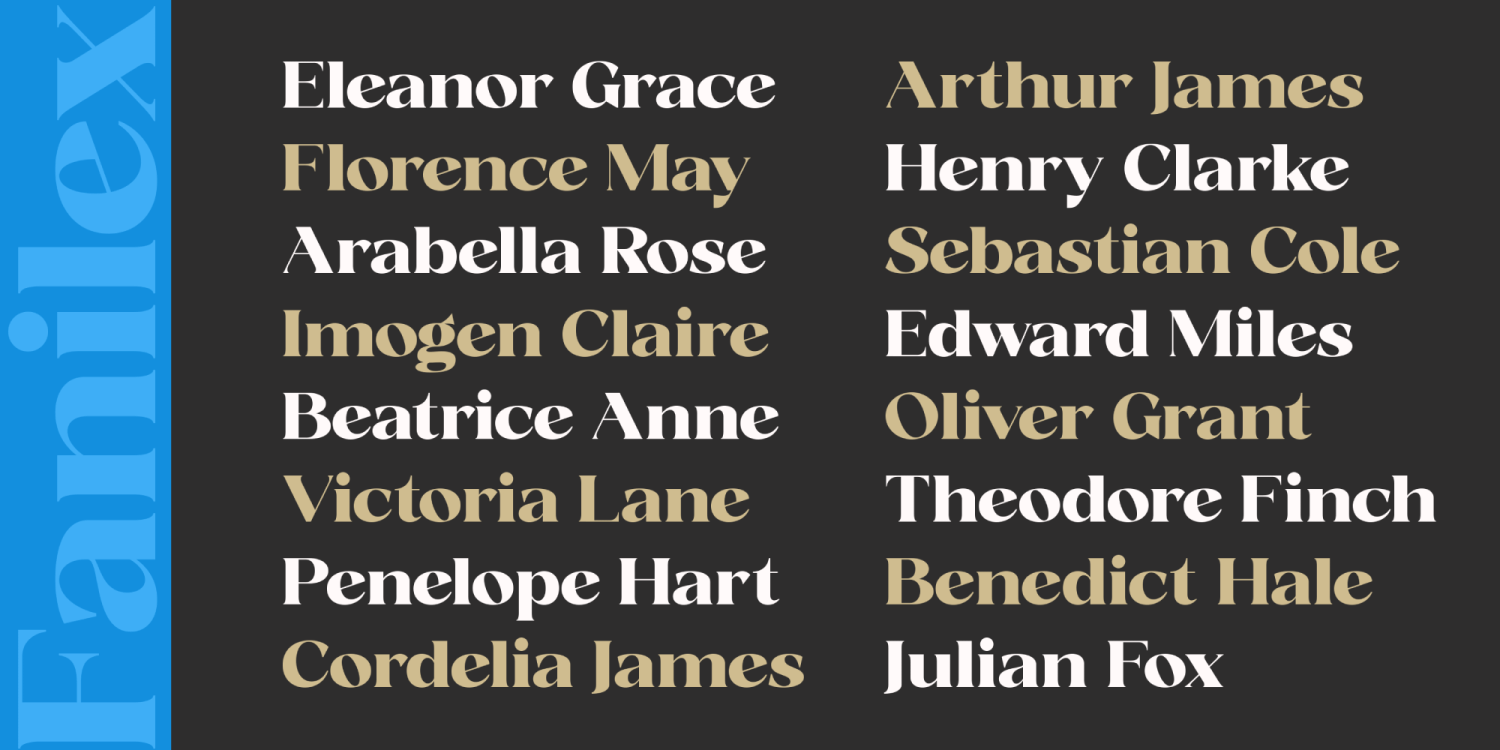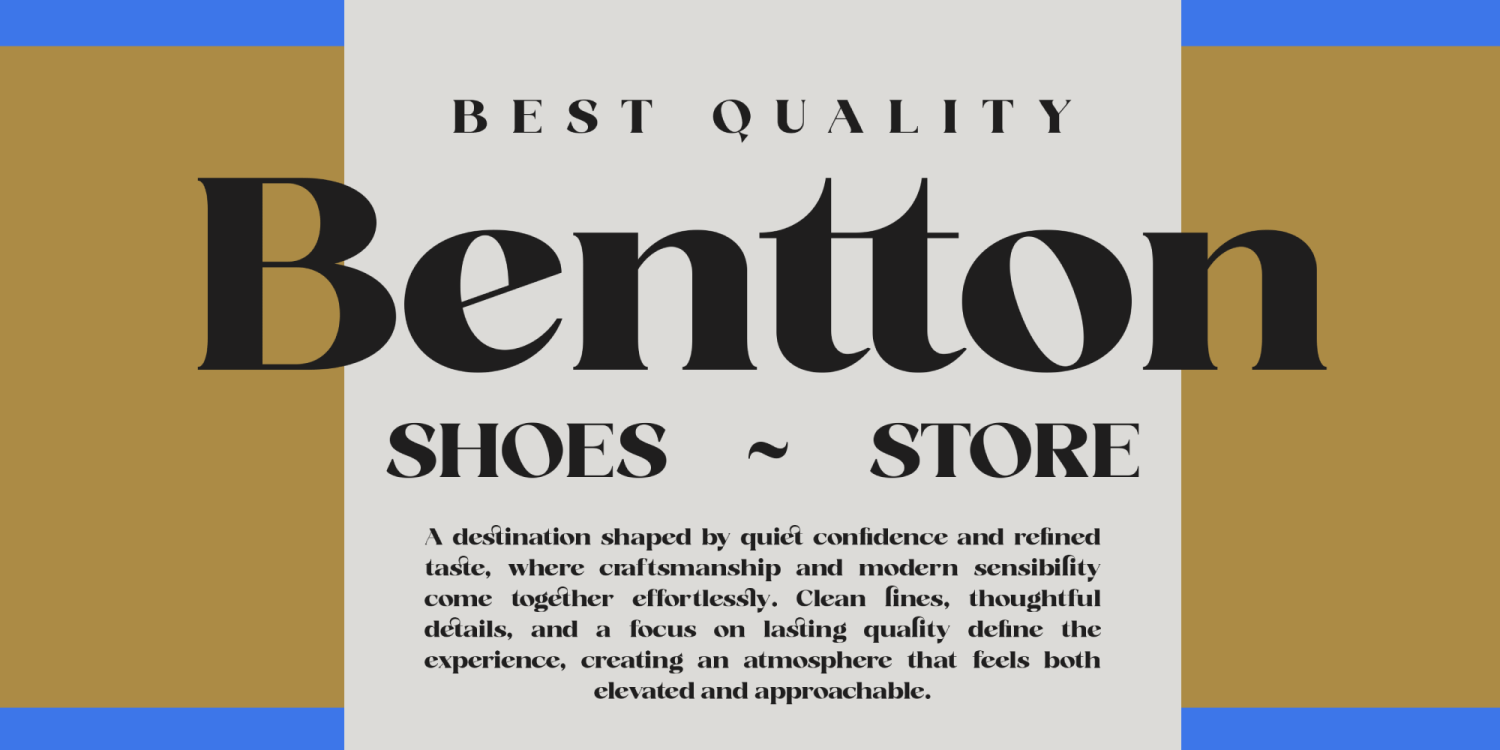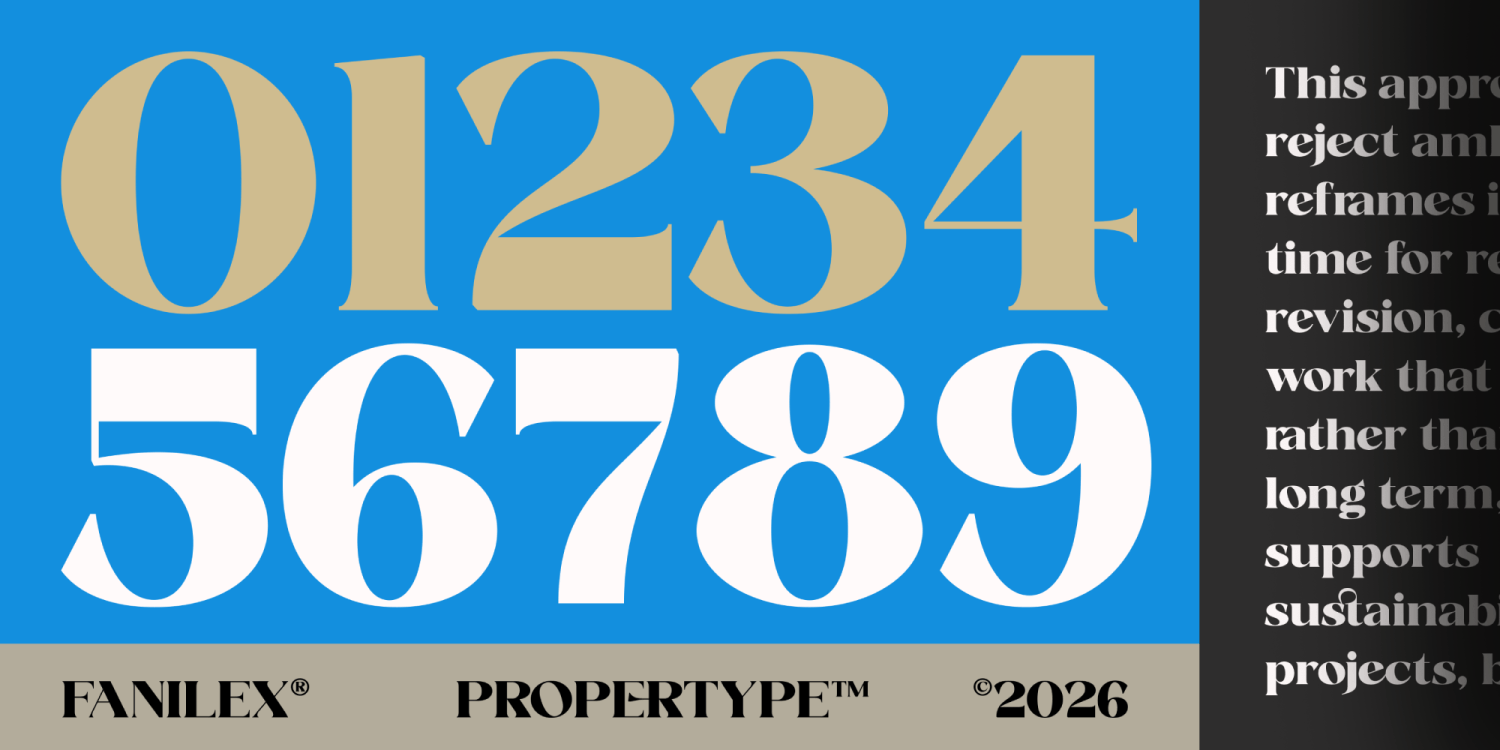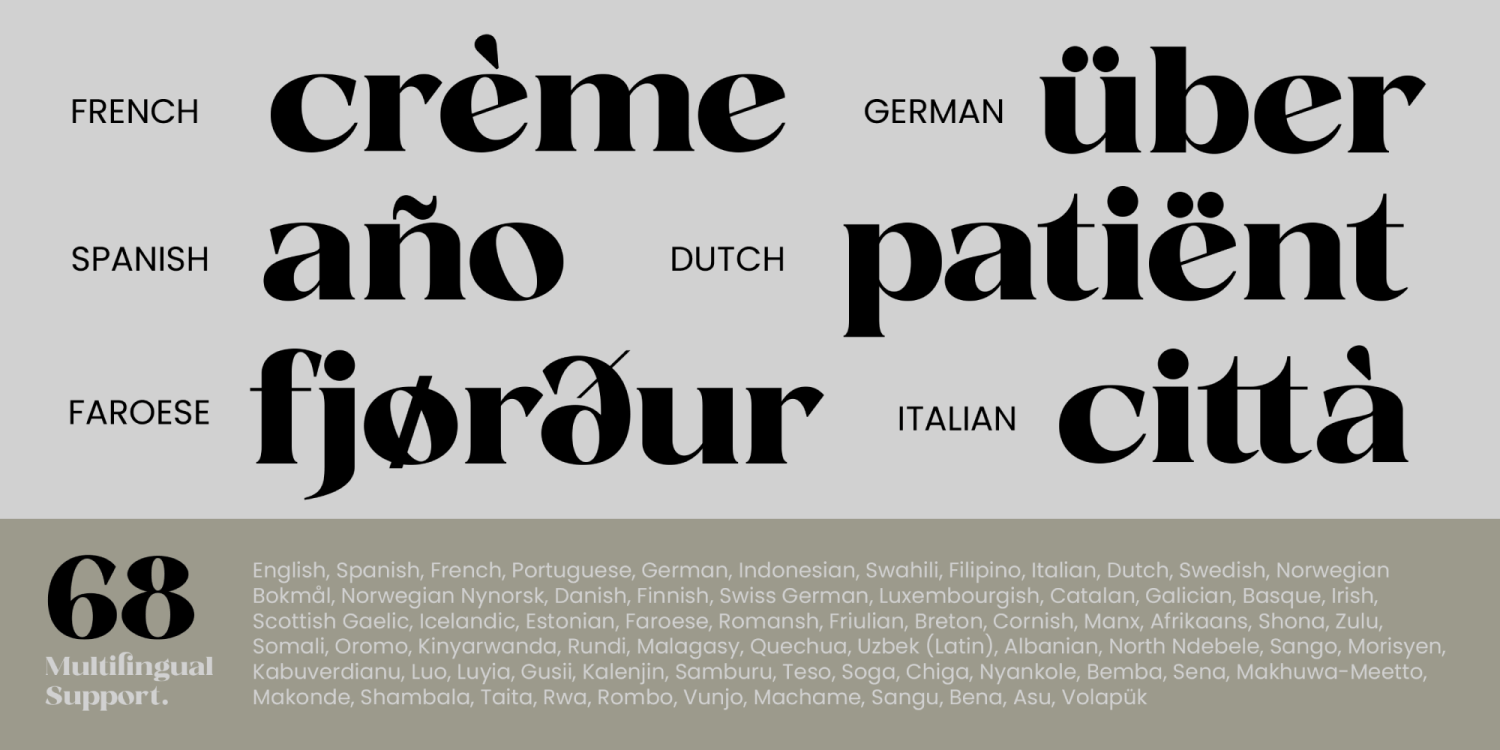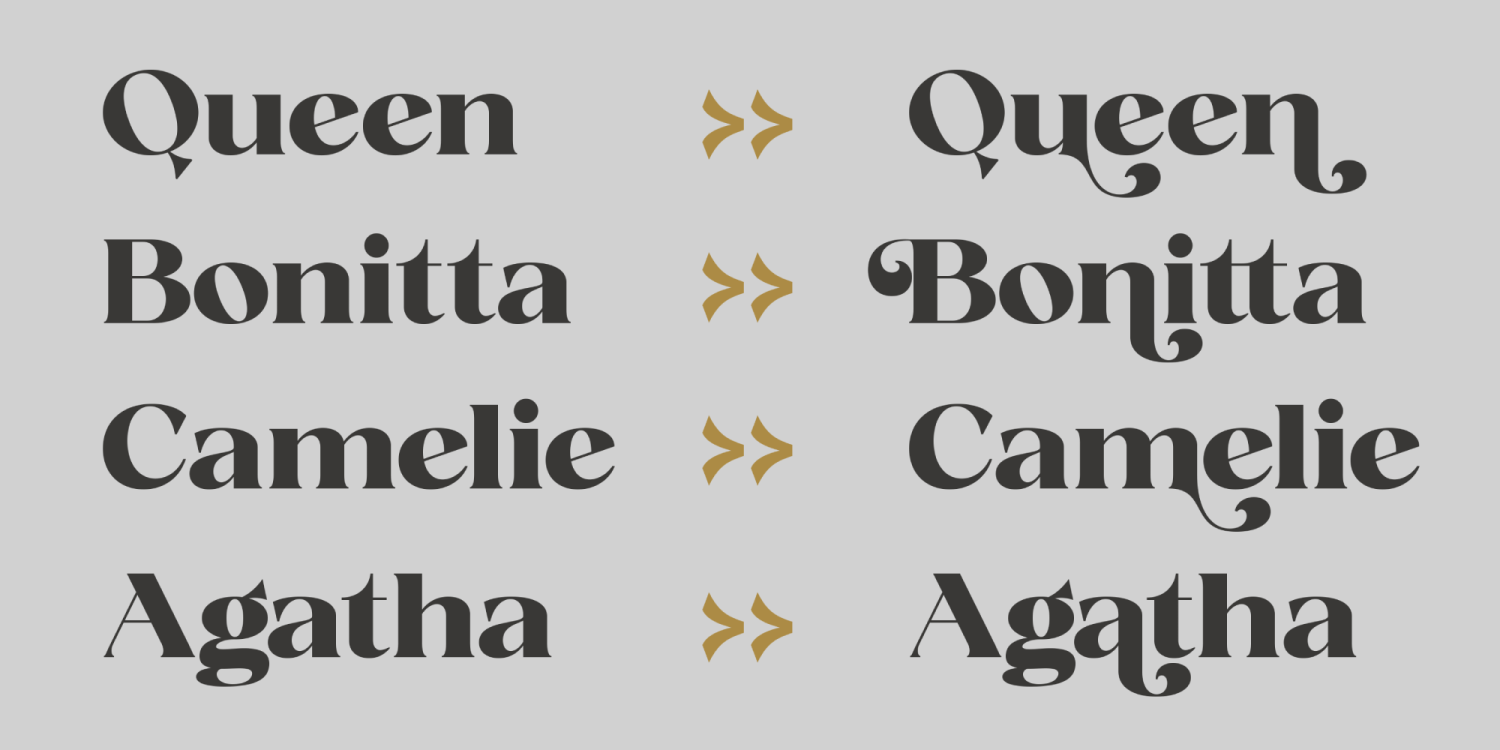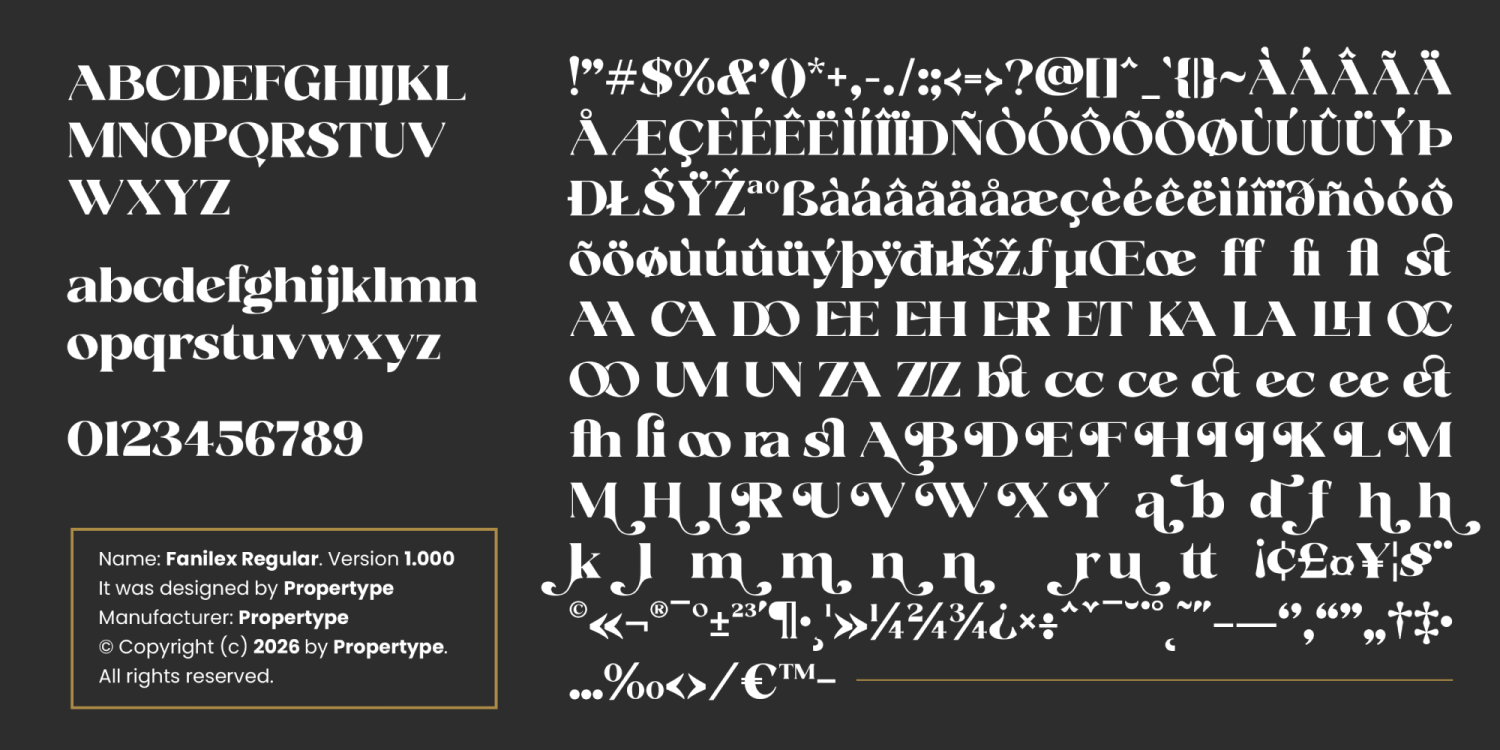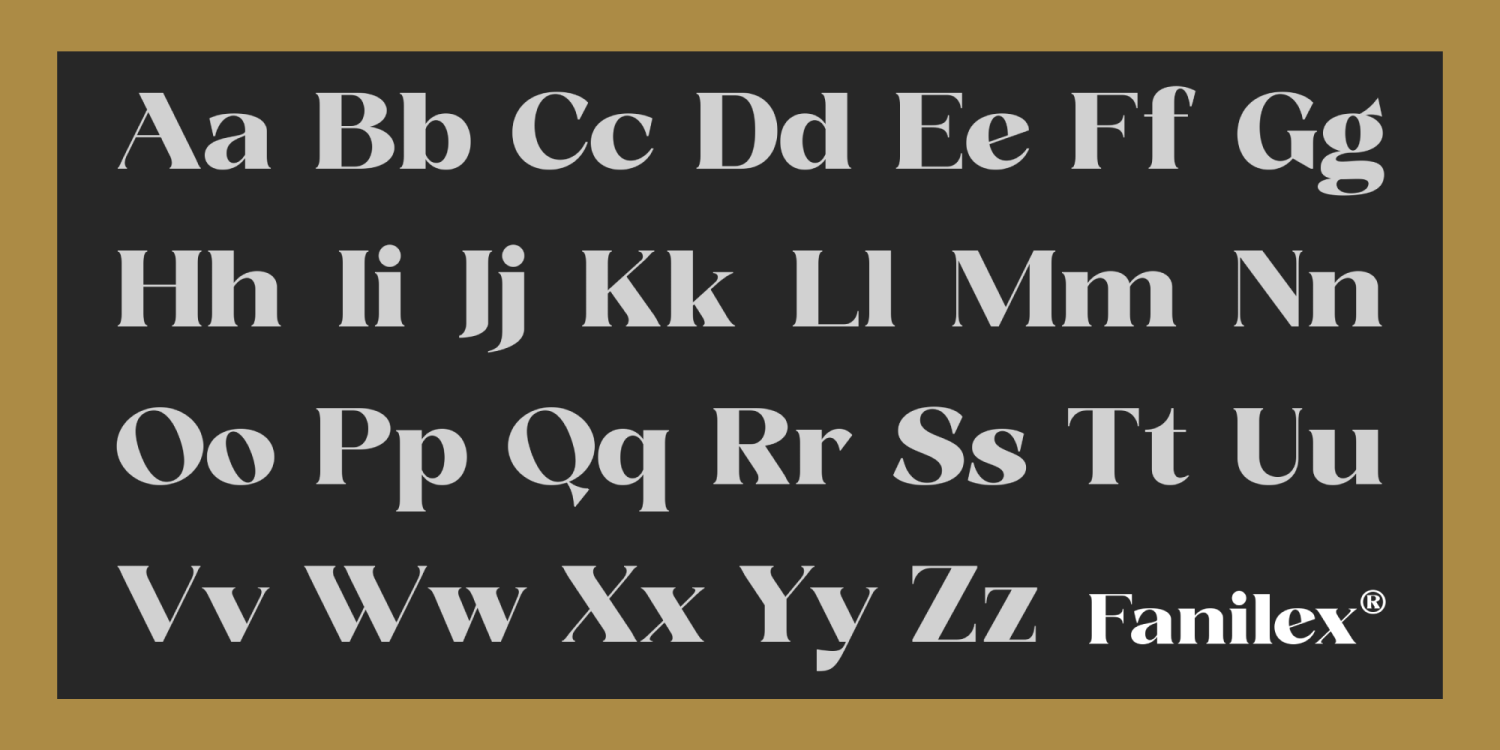
Fanilex
Fanilex is a classic editorial serif typeface that blends the timeless elegance of traditional typography with a refined contemporary touch. Designed for beauty and versatility, Fanilex offers numerous alternates and ligatures, enabling limitless creative expression—from dramatic headlines to perfectly composed body text. Fanilex gives you complete control over your typographic style. Its graceful serifs, enhanced contrast, and sophisticated curves make it an ideal choice for editorial and magazine layouts, fashion and luxury brands, packaging and visual identities, typographic posters, and premium promotional materials. Fanilex strikes the perfect balance between classic beauty and modern sharpness—bringing a sophisticated presence to any medium, whether print or digital.